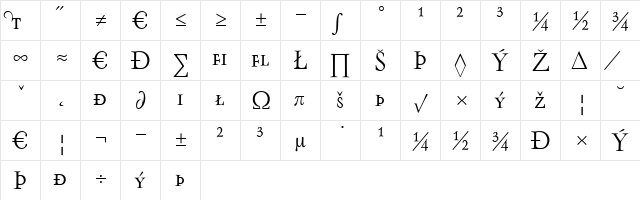
Oneleigh Regular
| Foundry | Nick Shinn, . Published by FontShop International. FontFont Release |
Design Context for Oneleigh Typeface
Oneleigh takes a measured approach to typography — its balanced proportions and neutral character make it a reliable workhorse for both digital and print work.